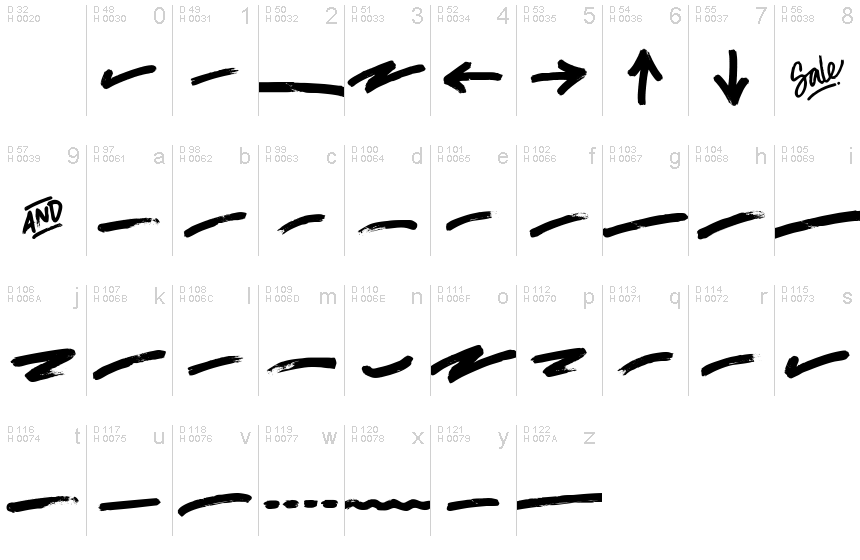
TAGLINER Swash
The Tagliner Swash font exudes a captivating, brushed elegance that commands attention. Designed by Excellent Ritma Florendia, this bold and expressive typeface from the Tagliner family boasts striking swashes that add a dynamic, artisanal touch to any design. Its fluid, handcrafted aesthetic effortlessly conveys a sense of sophistication and creative flair.
Tagliner Swash's versatility makes it a versatile choice for a wide range of design applications, from high-end branding and packaging to editorial layouts and eye-catching displays. Its bold presence lends itself well to impactful headlines, while the sweeping swashes can elevate subheadings and accent elements with a touch of artistry. Whether used for digital or print projects, this font has the power to elevate the overall aesthetic and leave a lasting impression.